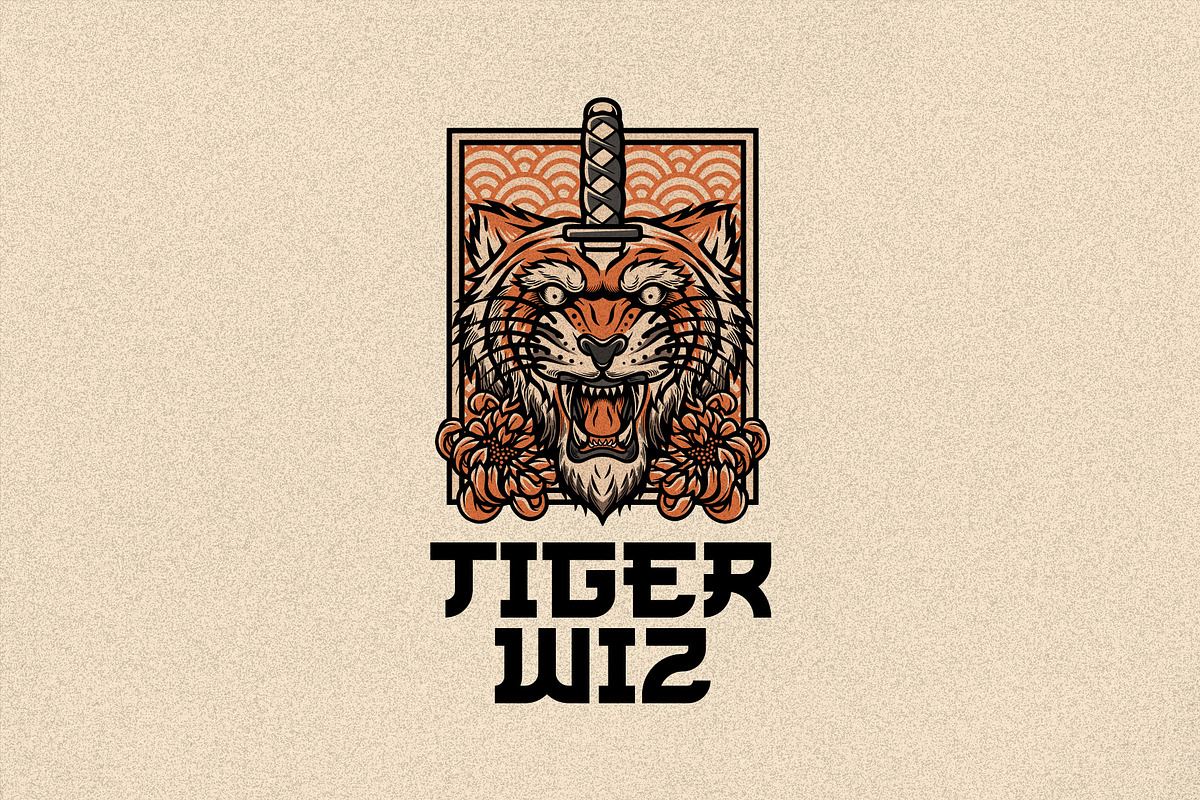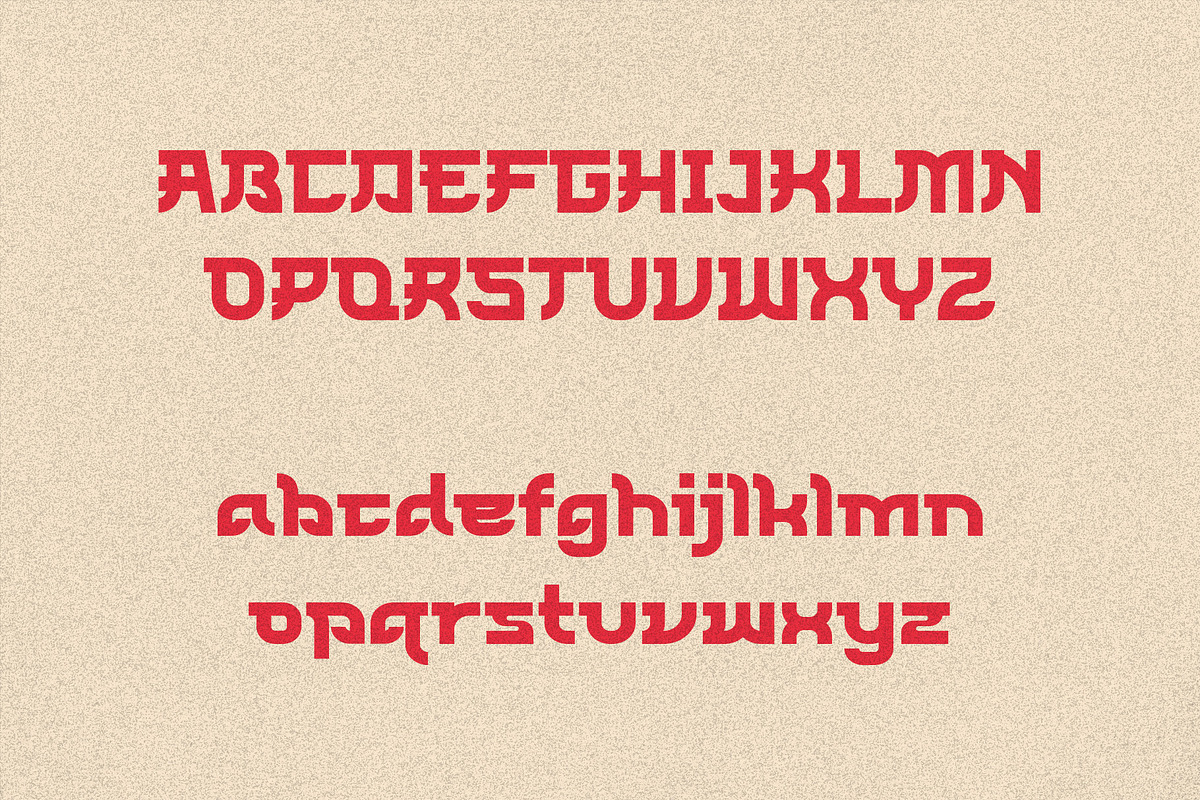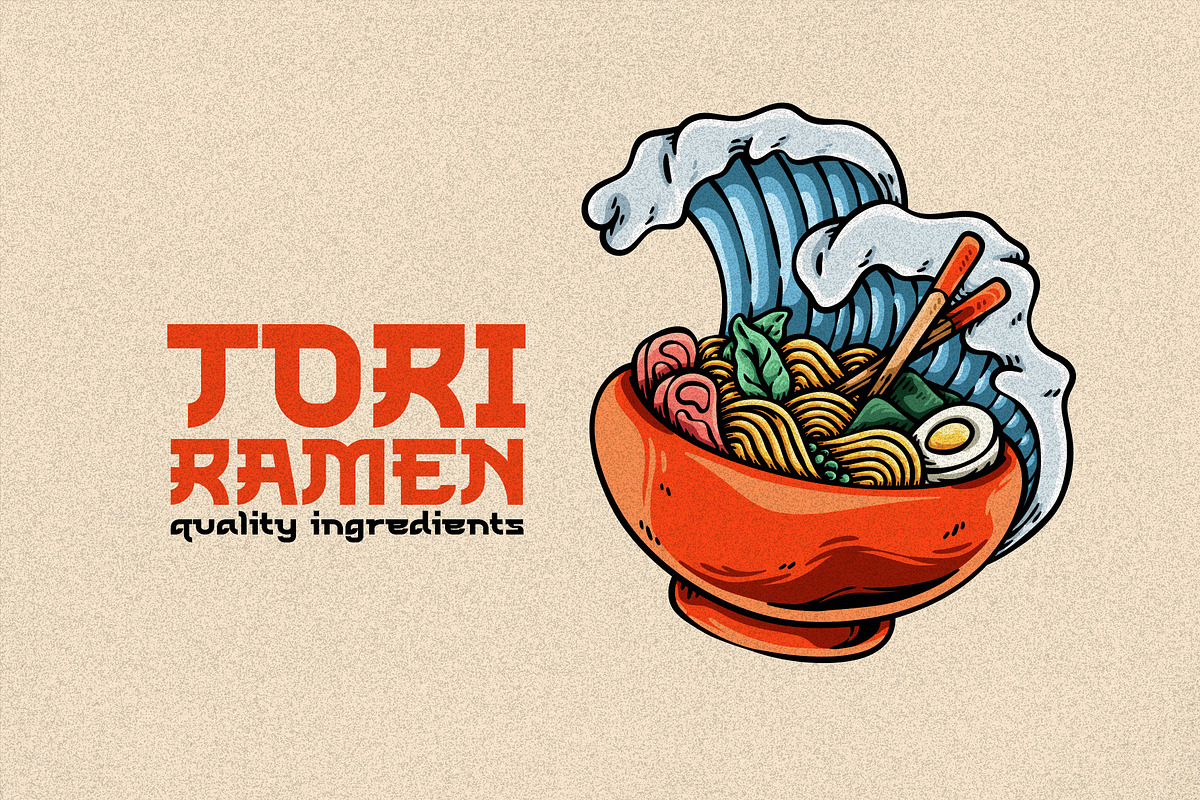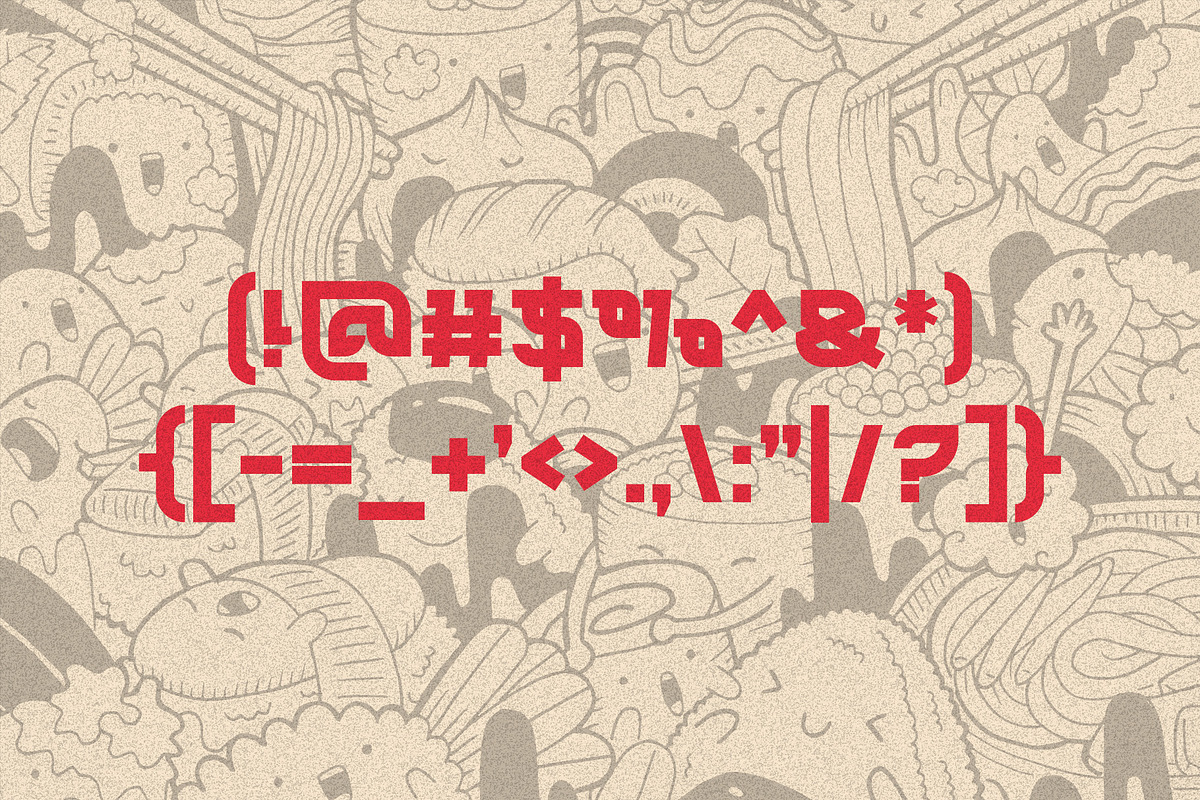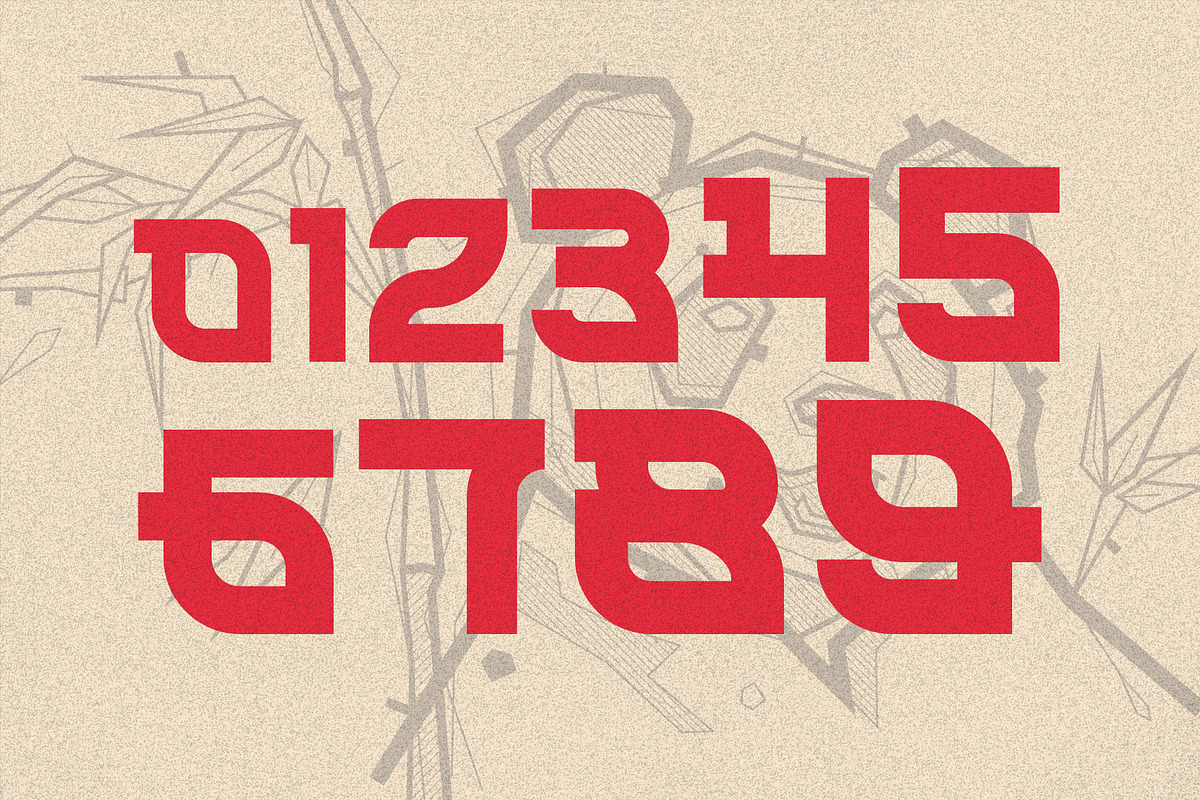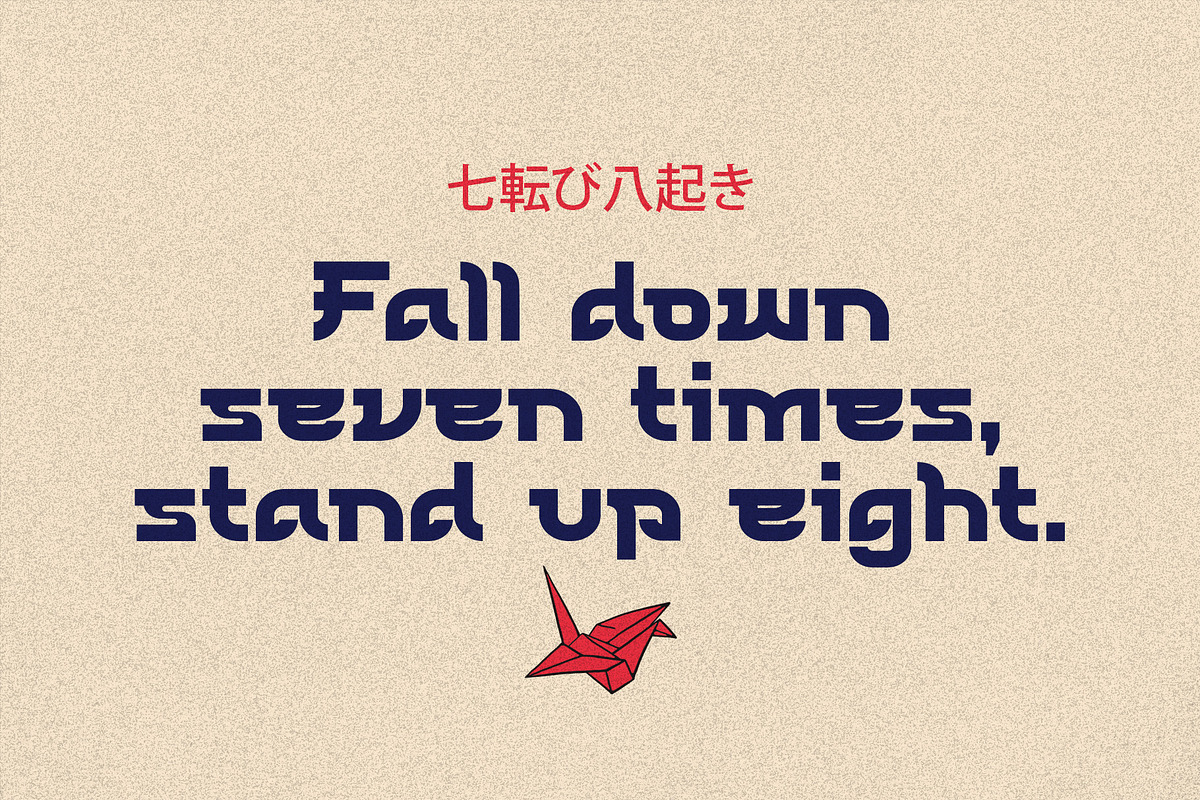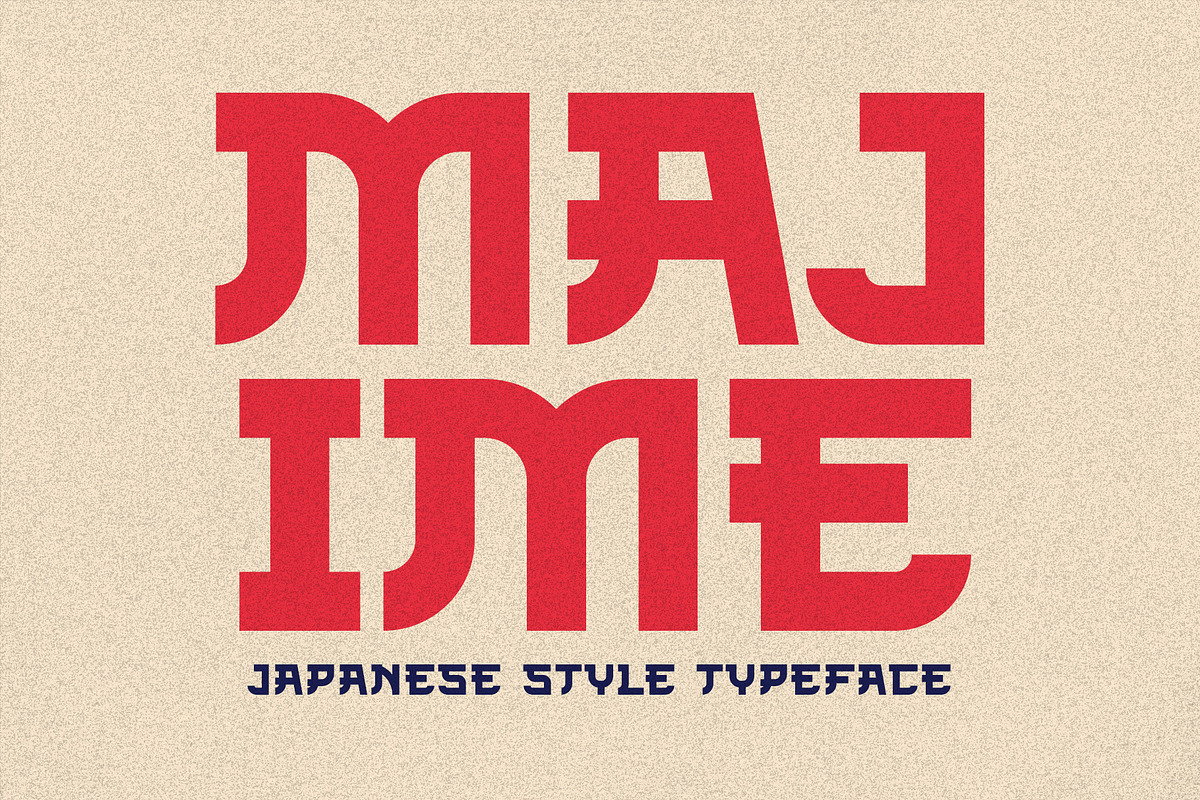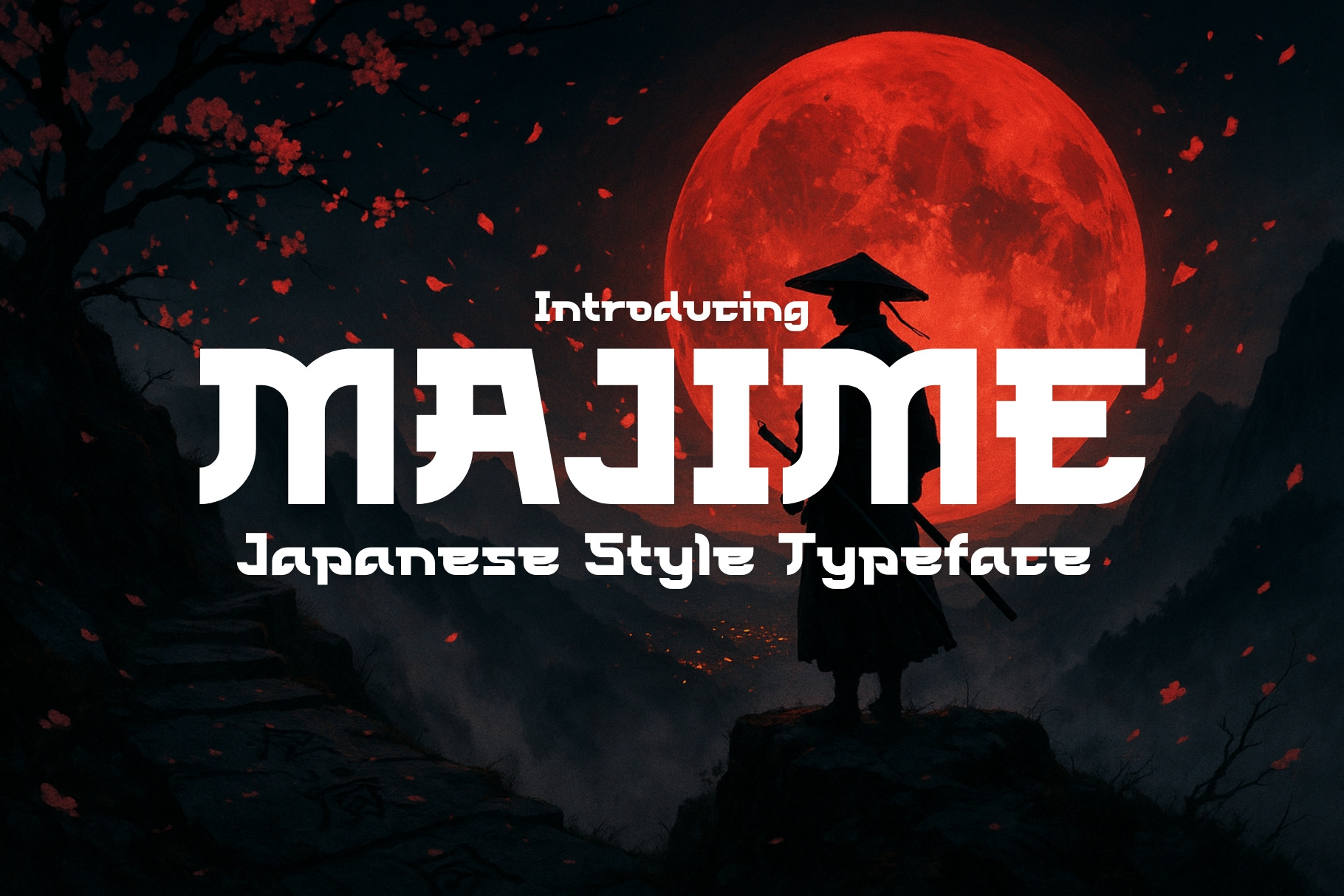
Majime - Japanese Typeface
Majime is a Japanese inspired typeface. This beautiful lower and uppercase style font is suitable for esports, posters, movie titles, branding, restaurants, youtube covers, youtube thumbnails, magazines, social media, and more. Majime is modern, professional, and quite timeless, perfect for your current and future projects.